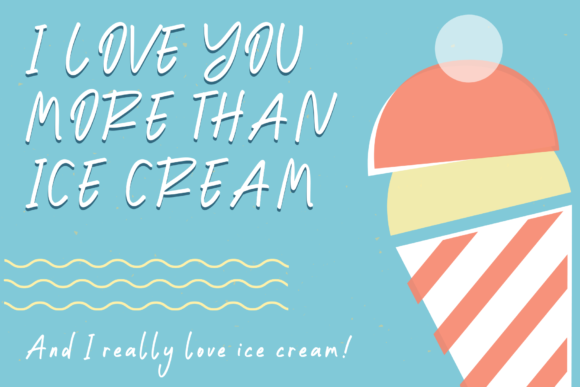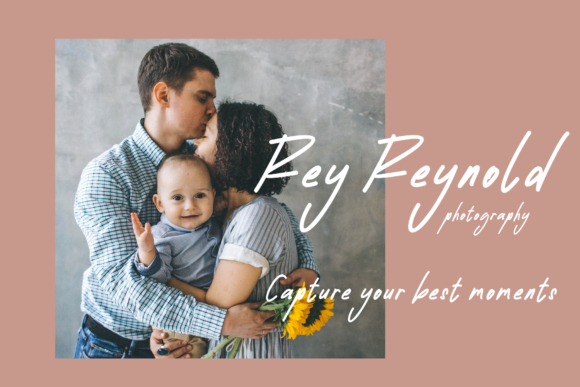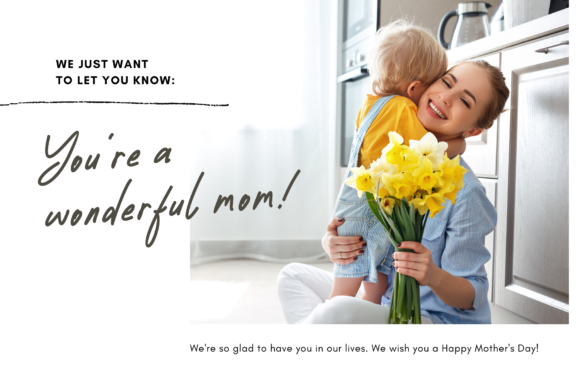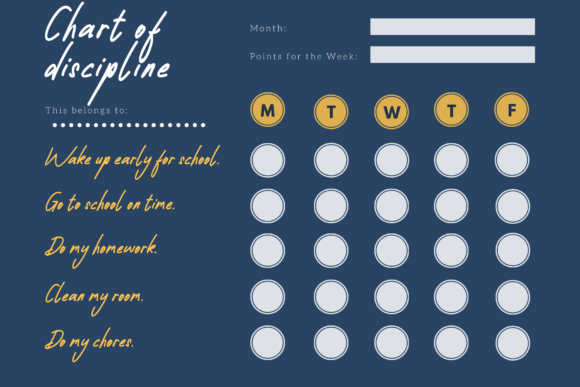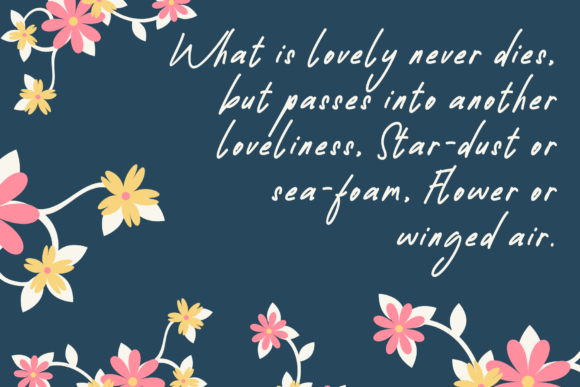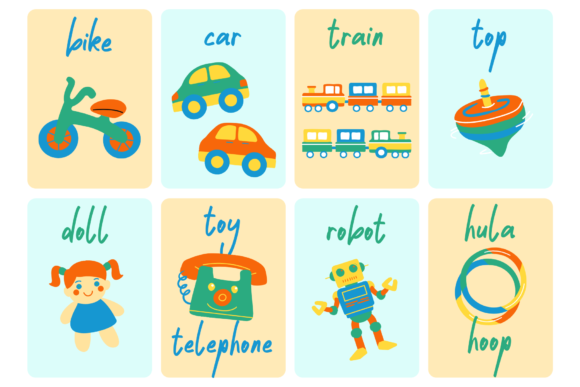
Introduction to Robertto Font
Robertto is a cute, quirky and friendly handwritten font.
It has a modern yet whimsical style and it will undoubtedly immerse your designs into a magical world .